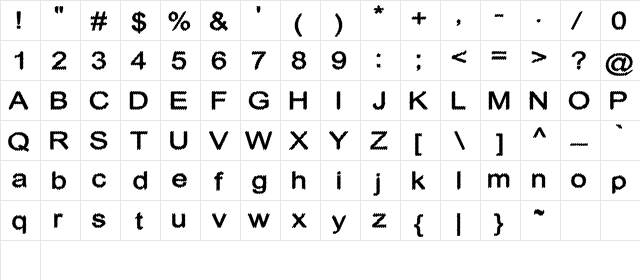
Cylonic Crossdraft Regular
Design Context for Cylonic Crossdraft Typeface
Cylonic Crossdraft offers clean, dependable letterforms without strong stylistic allegiance, making it a practical choice for designers who need flexibility.
Pro Tip: Pair Cylonic Crossdraft with a font of contrasting weight or personality to build a more expressive typographic hierarchy.